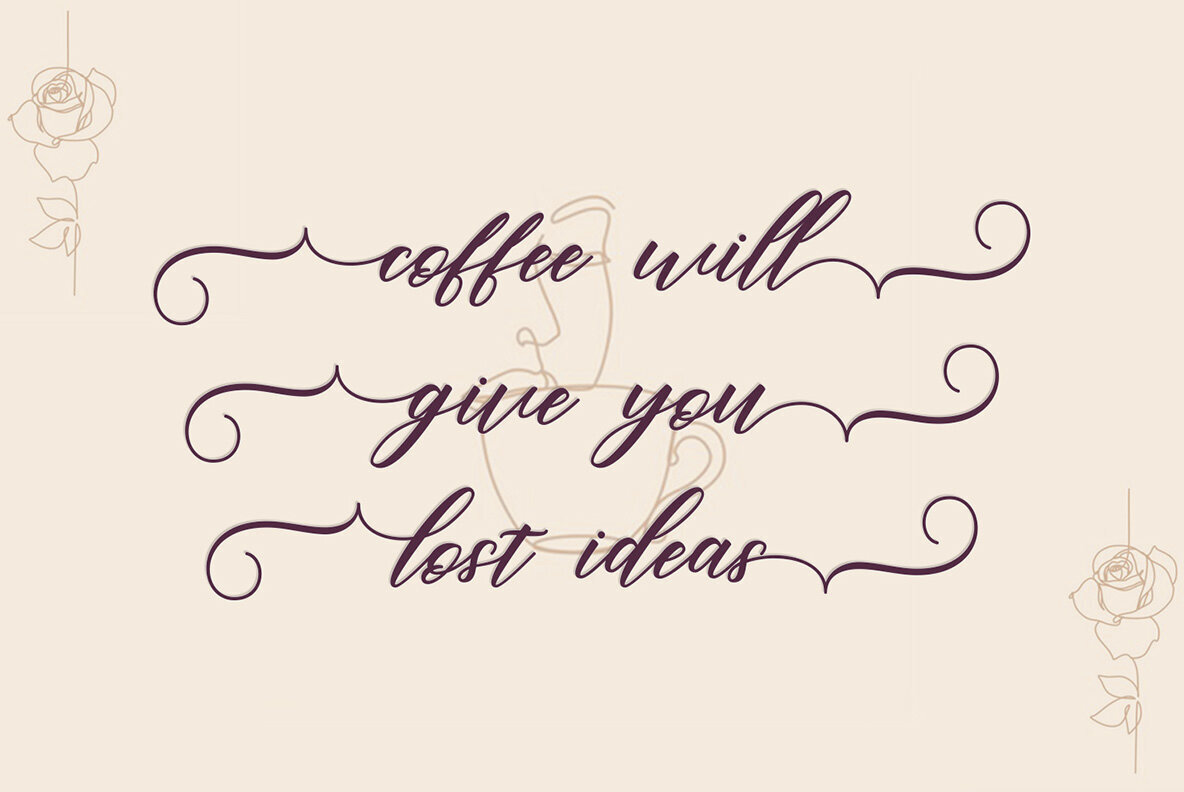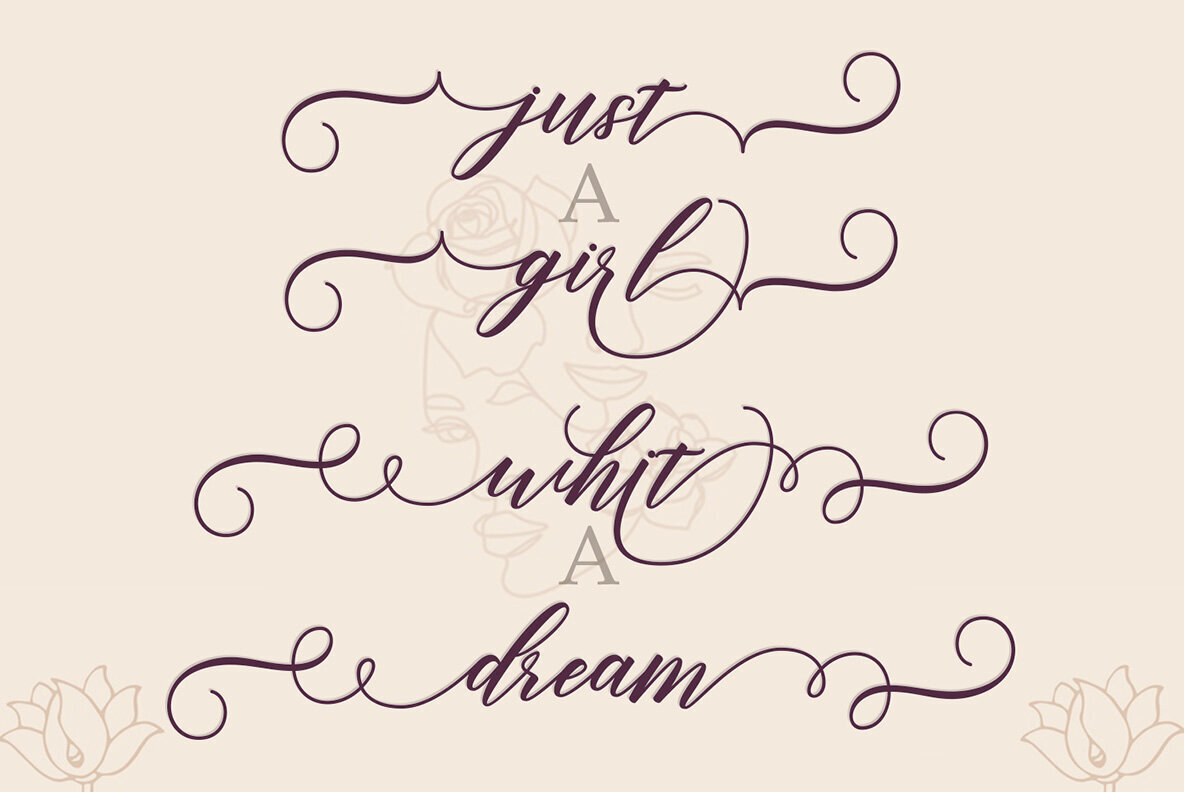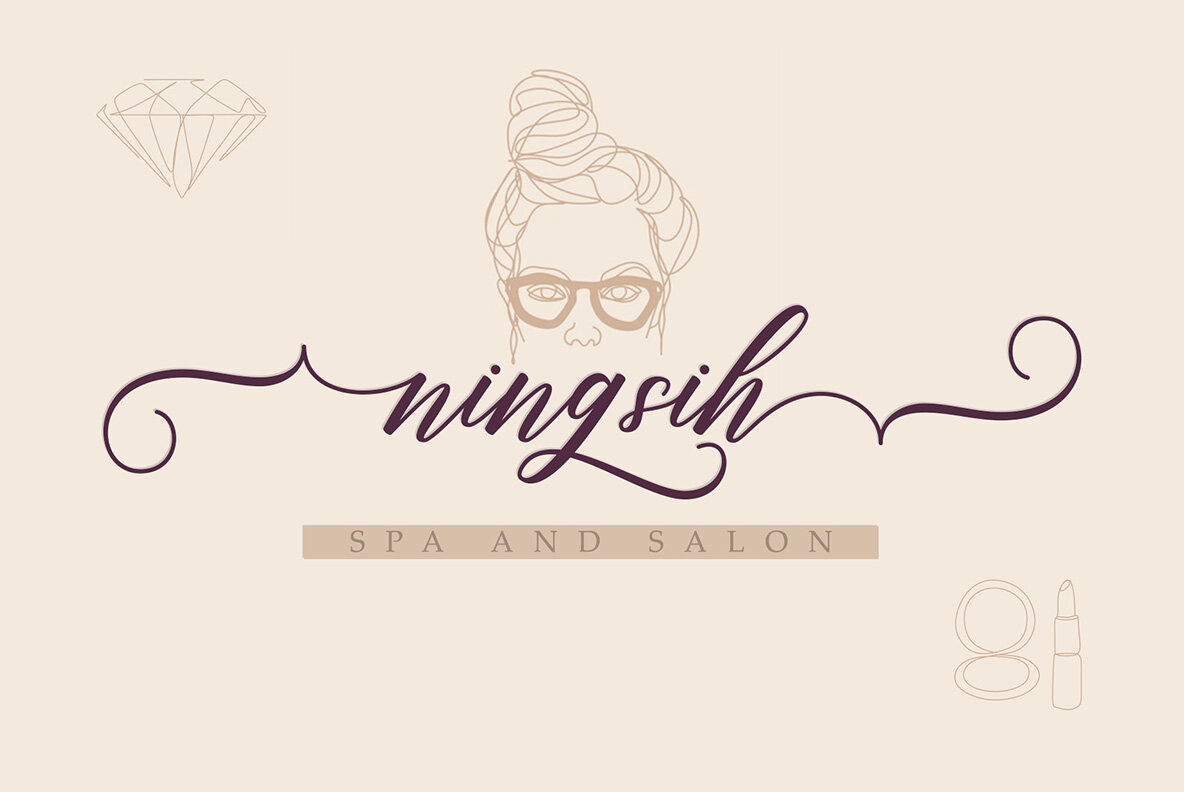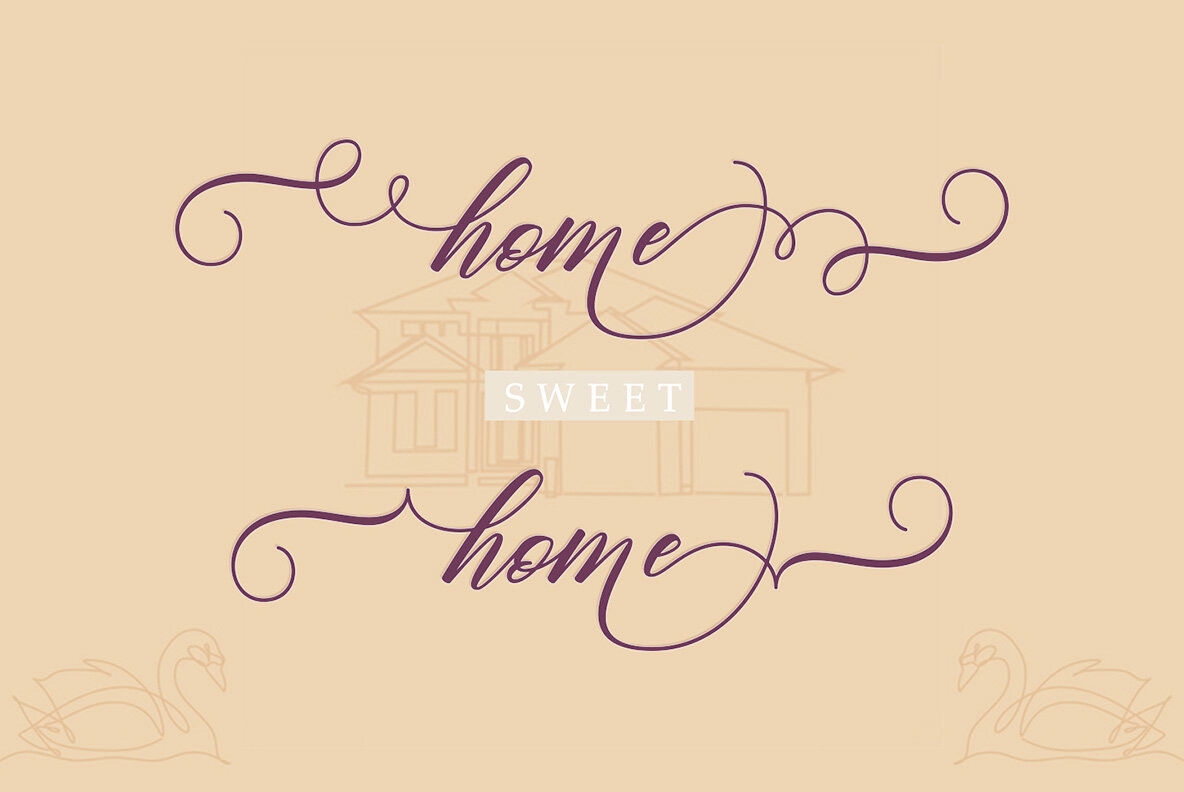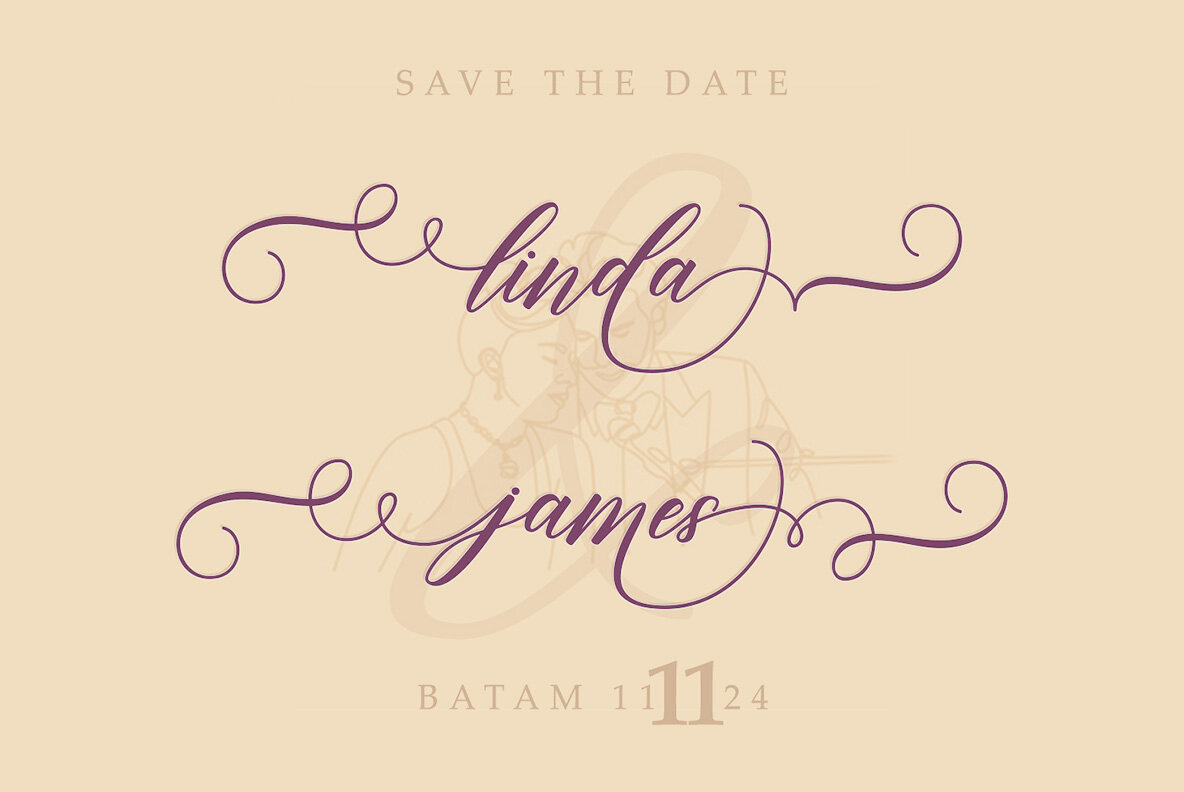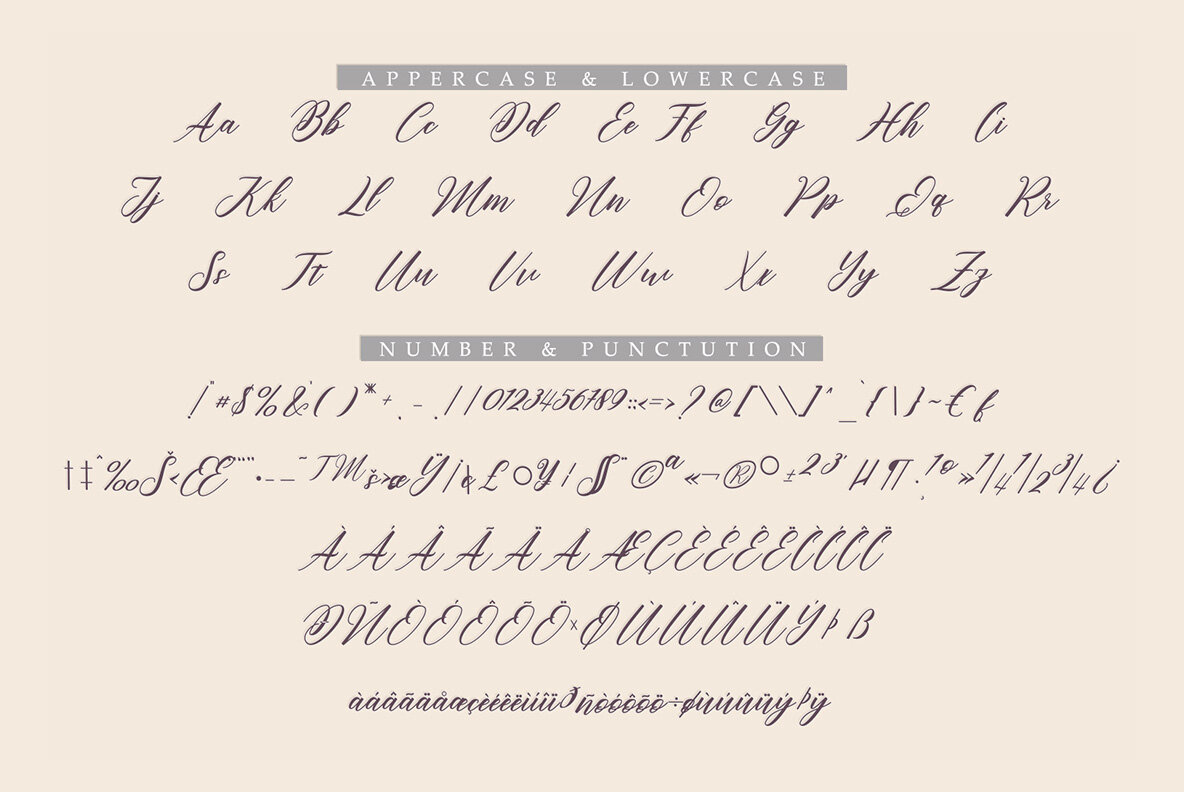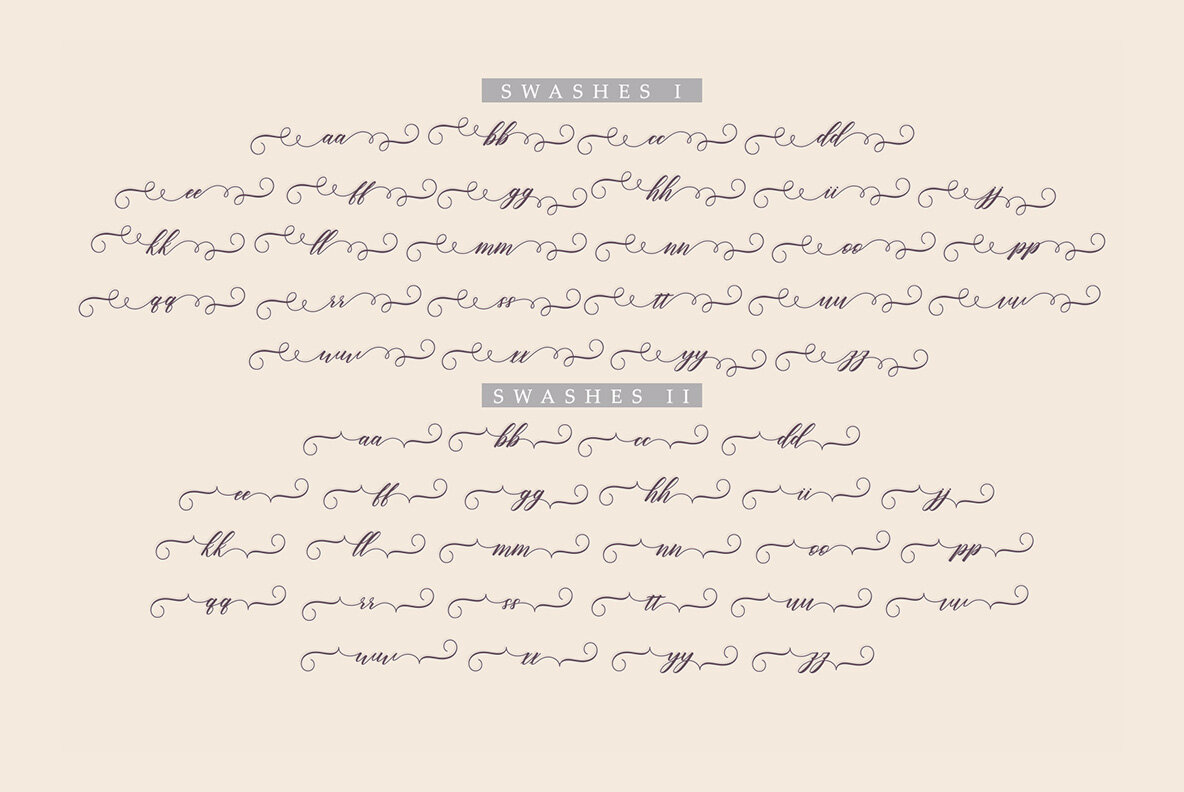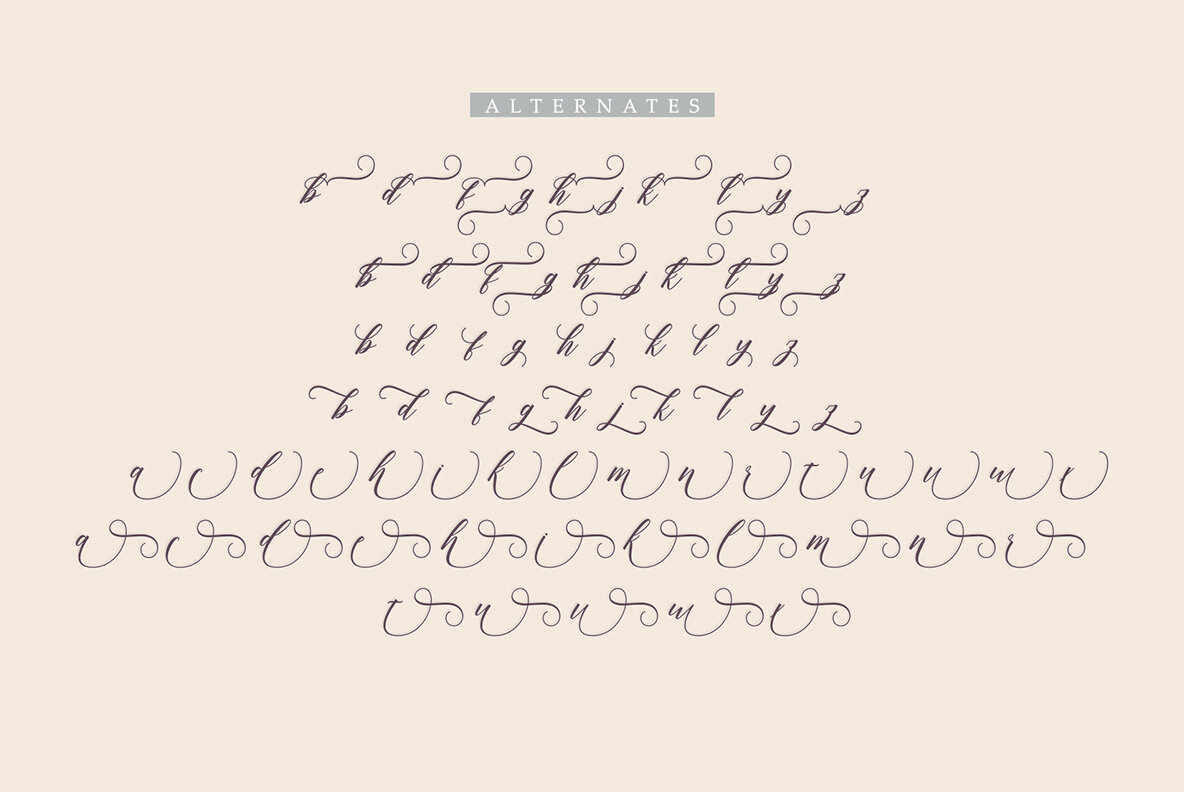
Linda Script Font
Linda Script
Linda Script is a modern, dynamic script font that combines elegance and energy in its design. The characters feature graceful forms with curved terminals, offering the impression of stylish, yet energetic handwriting. This font is ideal for branding projects, logos, invitations, and other designs where a casual yet professional style is desired.
The light, modern feel of Linda Script is enhanced by the subtle contrasts in each stroke, providing both readability and a bold, artistic presence. Its unique design makes it a versatile choice for designers seeking to add a touch of elegance without sacrificing clarity or impact.